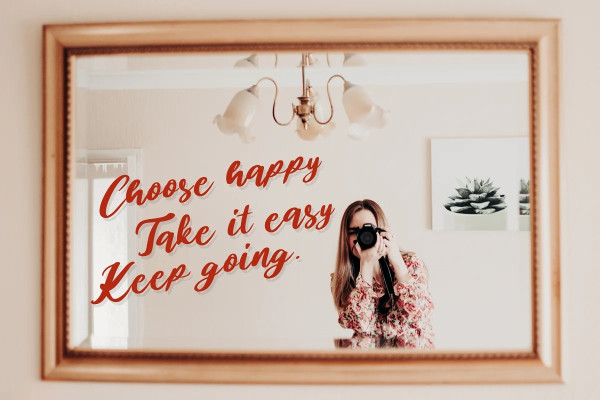
Kalimby Script Font
Kalimby Script Font – Handwritten Script is a cute script with natural handwritten look. Suitable for Logo, greeting cards, quotes, posters, branding, name card, stationary, design title, blog header, art quote, typography, art, modern envelope lettering or book design, happening style like handdrawn design or watercolor design theme, craft design, any DIY project, book title, or any purpose to make your art/design project look pretty and trendy.